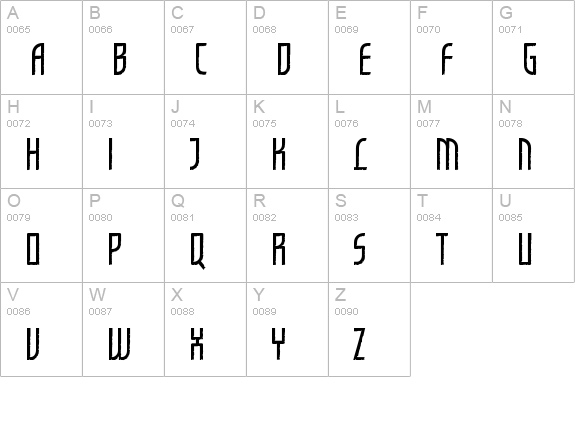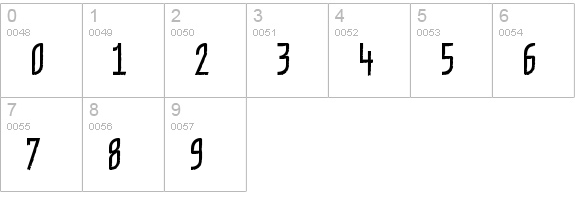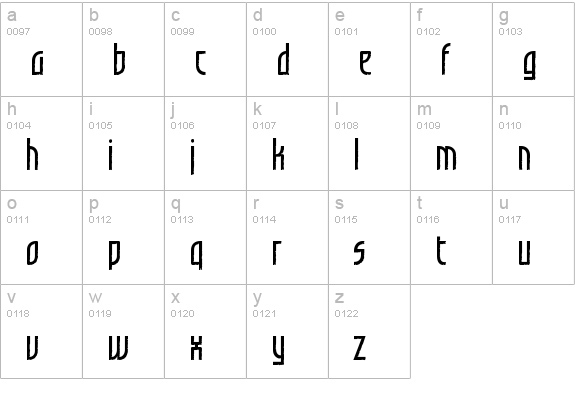
GrafiloneLLSemiBold Font Details
GrafiloneLLSemiBold is a modern and elegant font that exudes sophistication and style. With its bold and striking appearance, this font is sure to make a statement in any design project. The clean lines and distinct letterforms of GrafiloneLLSemiBold make it perfect for headlines, logos, and other display purposes. The best part? GrafiloneLLSemiBold is available for free download at FontsMarket.com. This means you can easily add this eye-catching font to your collection without breaking the bank. Whether you're a designer looking to elevate your projects or a business owner in need of a fresh look for your branding, GrafiloneLLSemiBold is a versatile and reliable choice. Don't miss out on the opportunity to enhance your designs with GrafiloneLLSemiBold. Download it for free today and see the impact it can have on your creative endeavors!